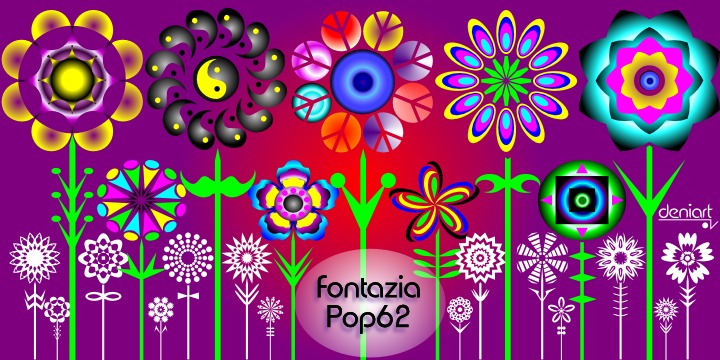
Dress it up and get into the 60’s groove!
Fontazia Pop62 features 62 unique pop flowers inspired by the flower-power era. These simple long-stem florals are great for nostalgic designs as well as any modern project where a little bloom is what you need. A great addition to any font library!